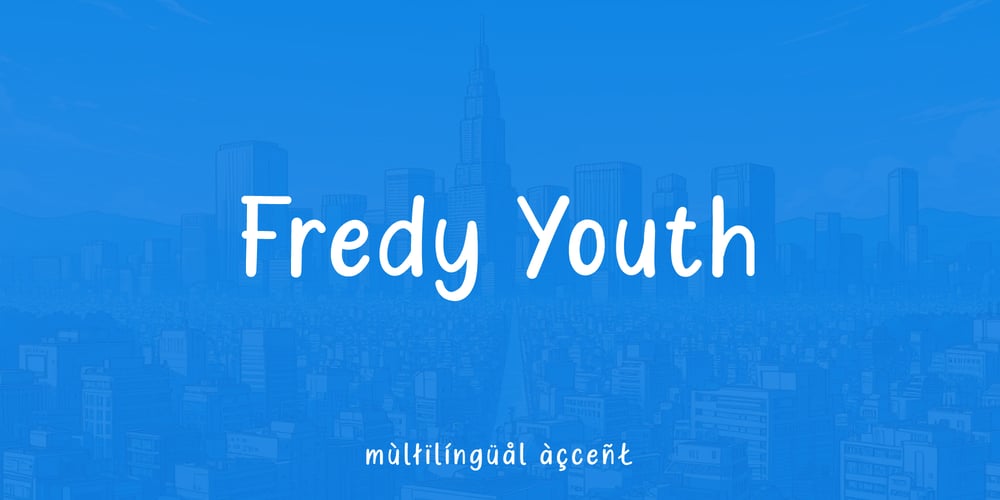
Fredy Youth Font Family was designed by Agustian Eko Saputro, Aprilia Nurina Putri and published by Mightyfire. Fredy Youth contains 1 styles and family package options. Introducing Fredy Youth – Multilingual Handwritten Font.The characters of this handwritten font exude a subtle charm, maintaining a delicate balance between sophistication and simplicity. Each letter is carefully crafted with a light touch, capturing the essence of handwritten notes while maintaining a modern and refined aesthetic. The absence of unnecessary embellishments allows the font to convey a sense of clarity and purity, making it a versatile choice for a wide range of design projects.